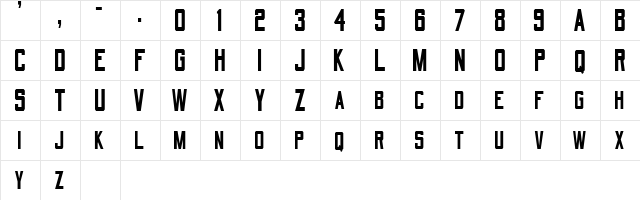
QuarterbackCondensed Regular
Design Context for QuarterbackCondensed Typeface
QuarterbackCondensed takes a measured approach to typography — its balanced proportions and neutral character make it a reliable workhorse for both digital and print work. The condensed width makes it efficient for tight spaces without sacrificing legibility.